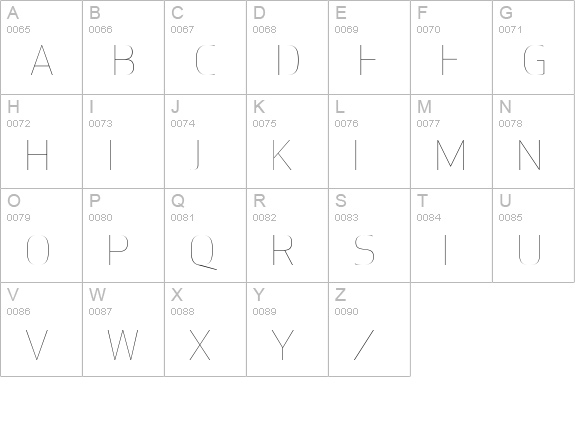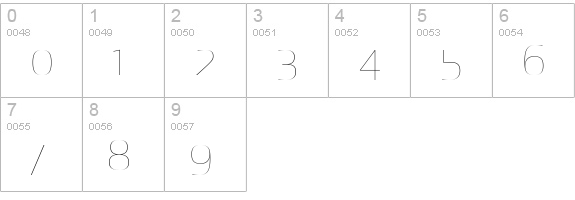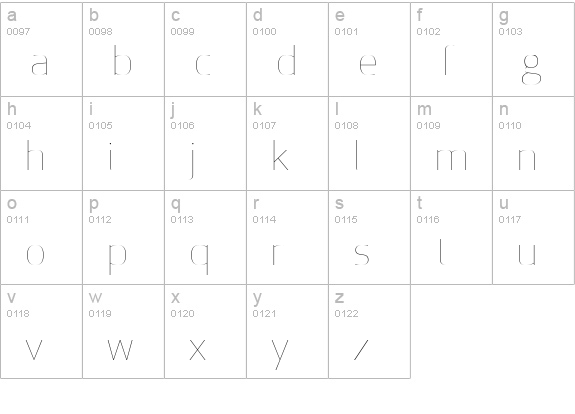
ApexNew-Thin Font Details
ApexNew-Thin is a delicate, low-contrast variant in the ApexNew typeface family \xE2\x80\x94 well suited to fashion editorial, minimal branding, and high-contrast display.
Introducing ApexNew-Thin font, a sleek and modern typeface designed to bring a touch of elegance to your projects. With its clean lines and minimalist aesthetic, ApexNew-Thin is perfect for creating a sophisticated look in both print and digital designs. This versatile font is ideal for a wide range of applications, from branding and advertising to web design and editorial work. The best part? ApexNew-Thin is available for free download at FontsMarket.com. Now you can elevate your designs without breaking the bank. Don't miss out on the opportunity to add this beautiful font to your collection and take your projects to the next level. Download ApexNew-Thin today and start creating stunning visuals that will leave a lasting impression.